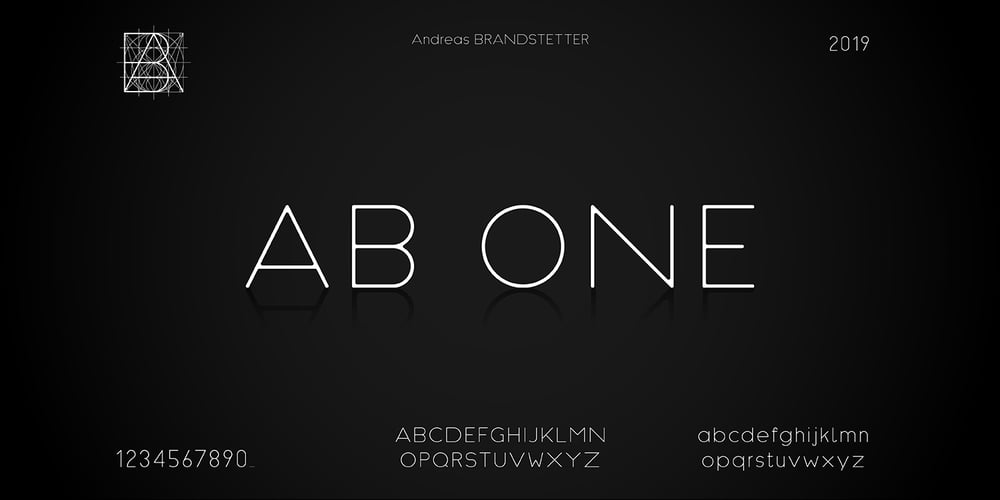
AB One
AB One font
AB One Font Family was designed by Andreas Brandstetter and published by AB Studio. AB One contains 3 styles and family package options. AB One is a captivating sans-serif font family that effortlessly blends modern aesthetics with a dynamic, fluid formality inspired by the world of architecture. This versatile typeface offers three distinct weights, each carefully crafted to cater to a range of design needs.Key Features: Dynamic Fluidity: AB One embodies the dynamic essence of architectural forms, showcasing a graceful flow and a sense of movement. The font’s letterforms possess an inherent flexibility that adds a touch of vibrancy to your designs, making it an excellent choice for contemporary projects that demand energy and liveliness. Sleek and Modern: The light weight of AB One radiates a modern, minimalist charm, perfect for creating a sleek and refined impression in your design projects. Its clean lines and well-balanced proportions ensure readability while evoking a sense of cutting-edge sophistication. Three Distinct Weights: The AB One font family offers three carefully crafted weights to provide versatility in your design work. Sans-Serif Elegance: As a sans-serif typeface, AB One represents a harmonious marriage of legibility and style. Its straightforward, elegant letterforms make it suitable for a wide range of applications, including branding, advertising, editorial design, and web interfaces. Inspired by Architecture: Drawing inspiration from the world of architecture, AB One captures the essence of structural elegance and sophistication. This font is an ideal choice for projects that require a touch of architectural finesse. Versatile Application: AB One’s adaptability allows it to excel in a variety of design contexts. It seamlessly integrates with other design elements, providing a harmonious and engaging visual experience. AB One is a typeface that thrives on the principles of sleek modernity and architectural inspiration, making it a go-to choice for designers who seek to infuse their projects with a touch of dynamic fluid formality.